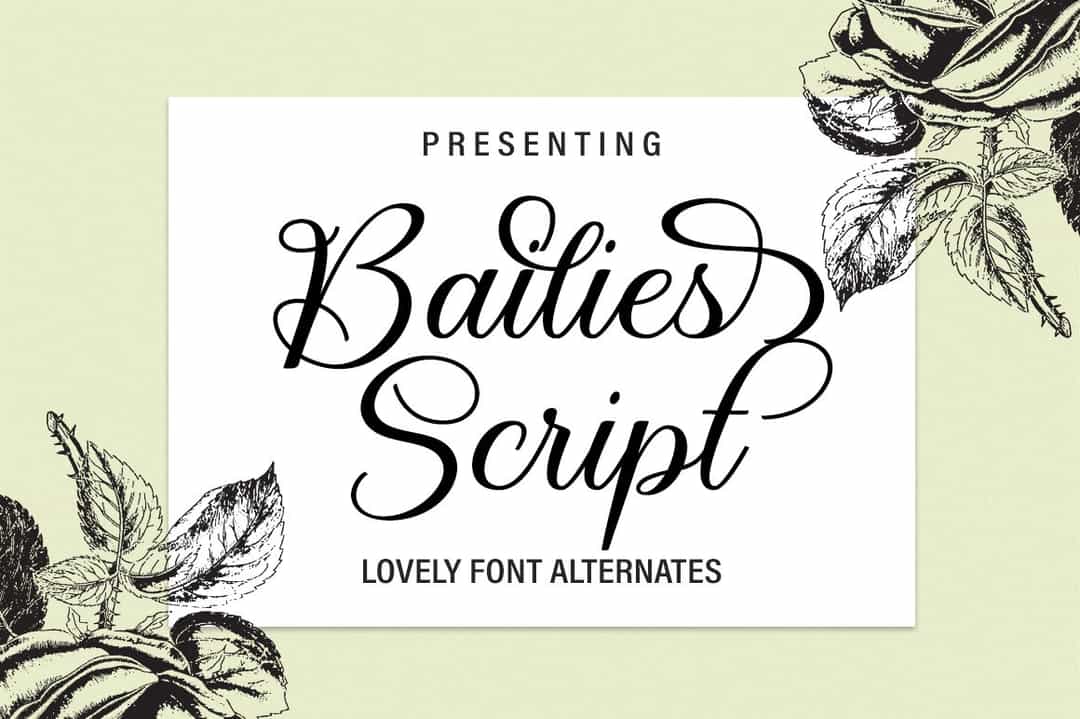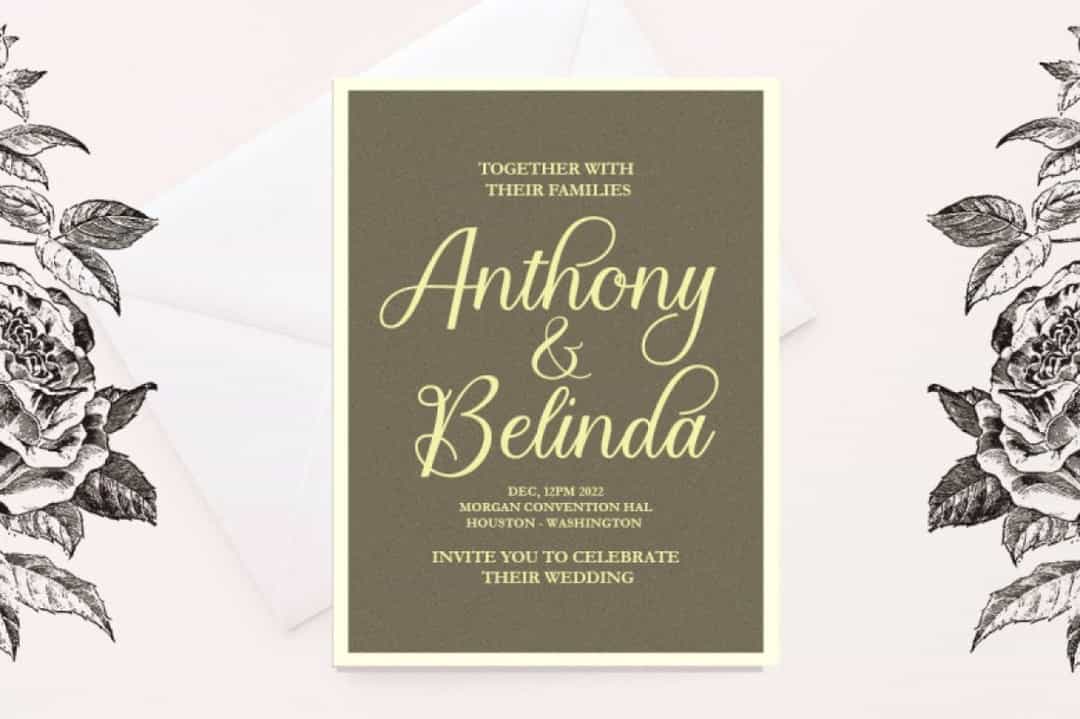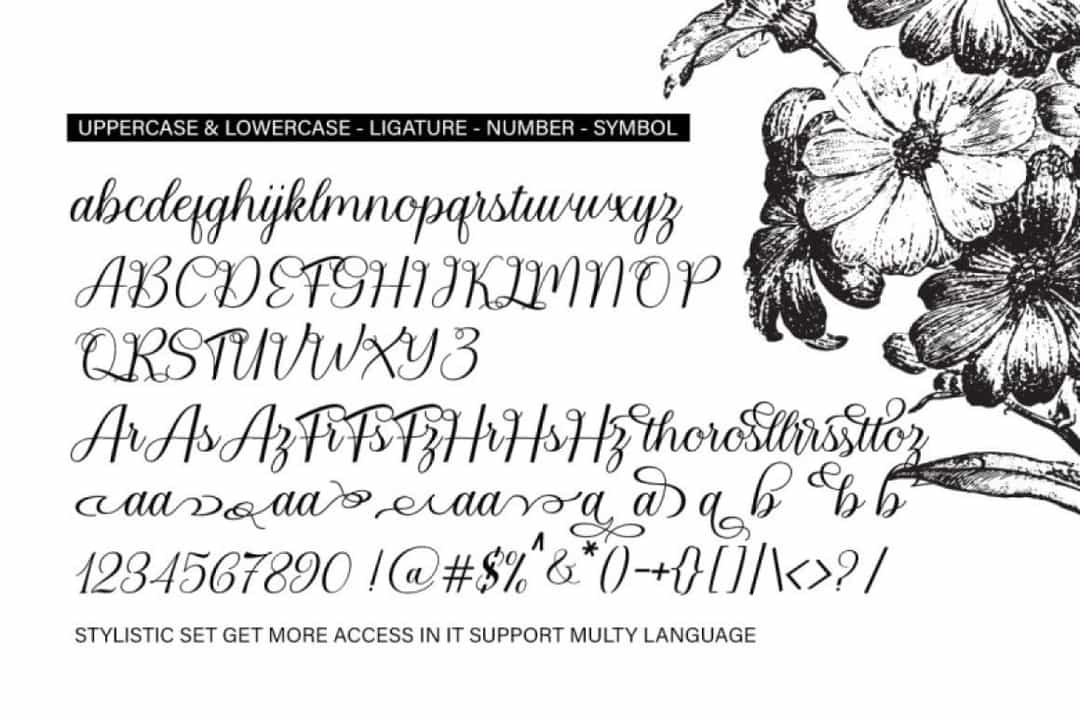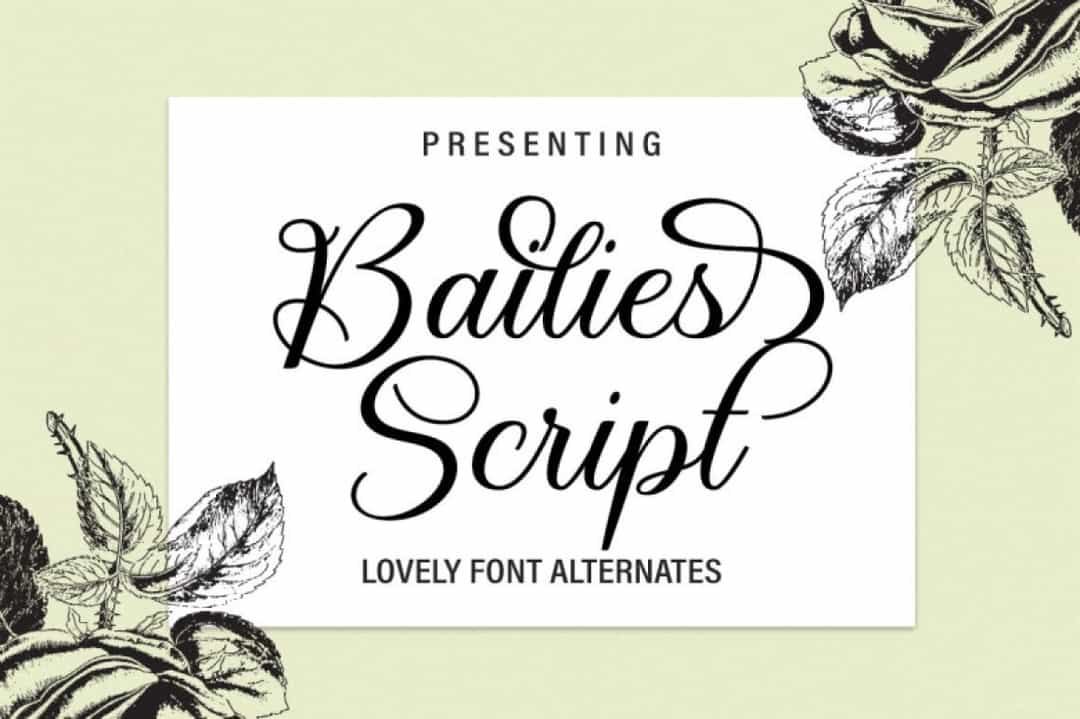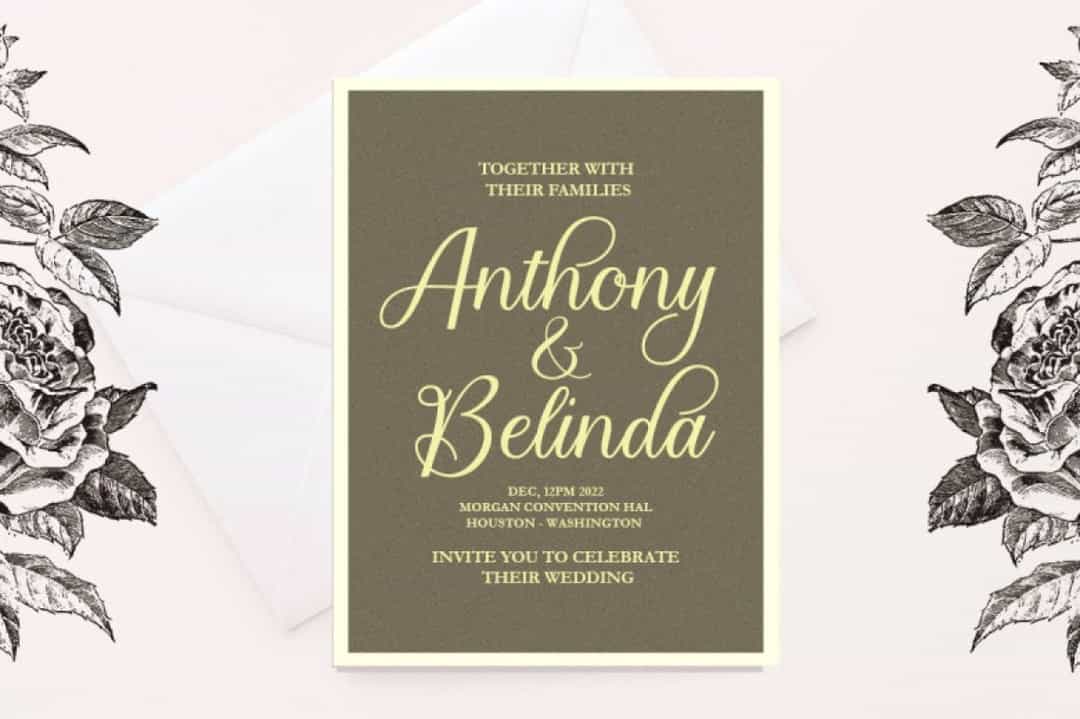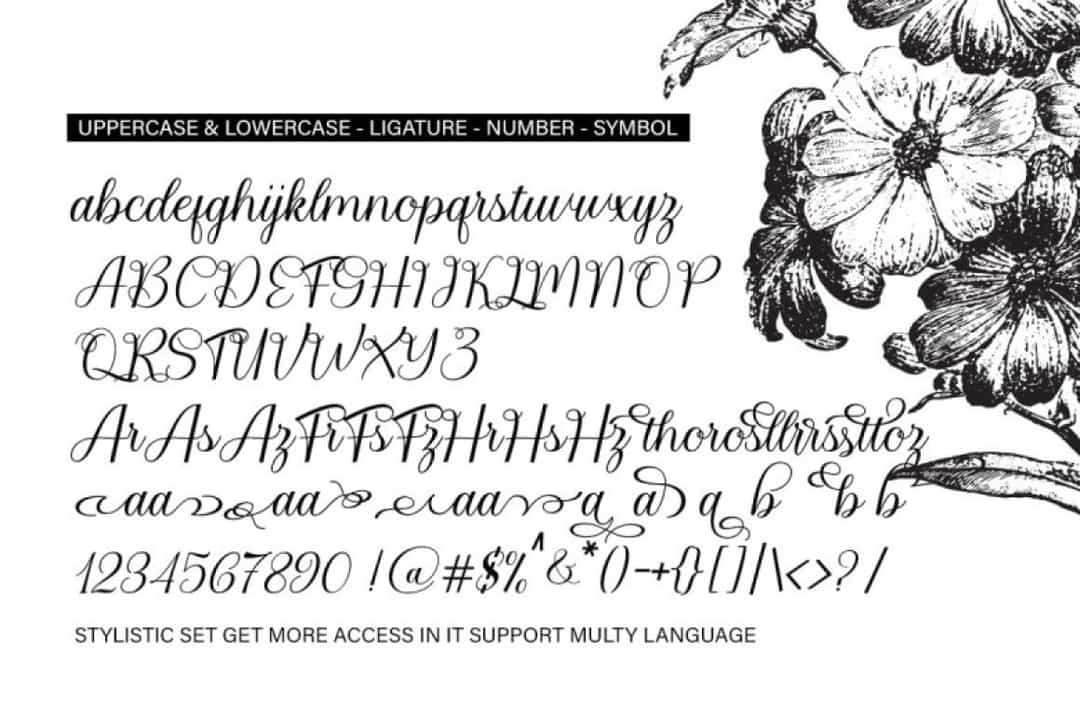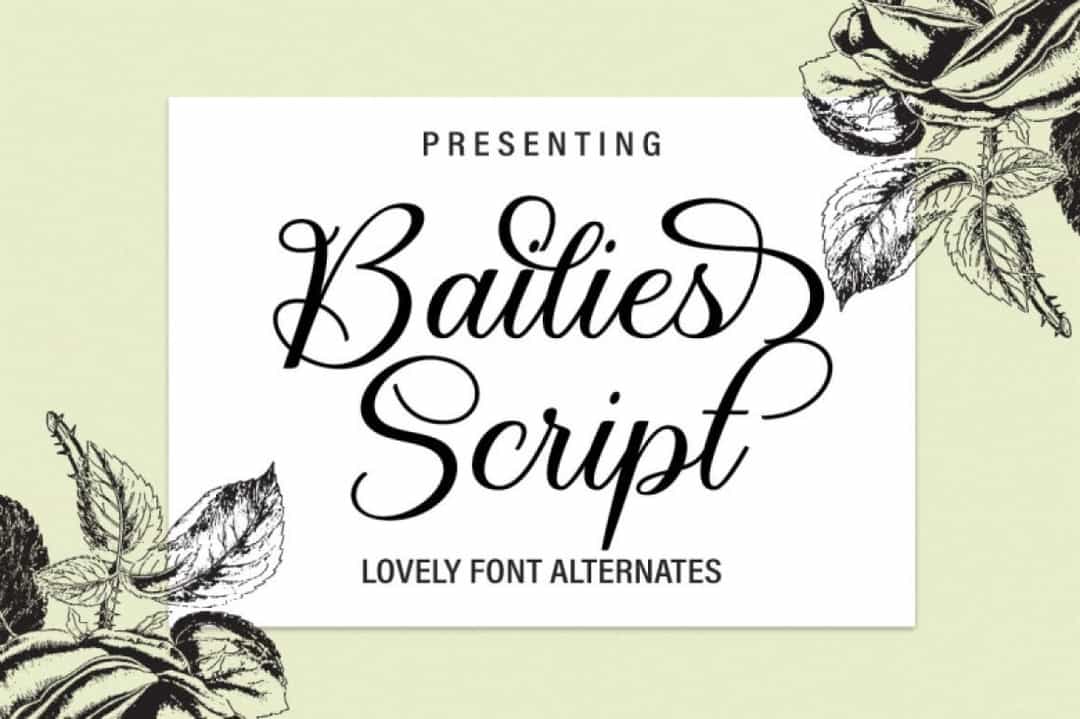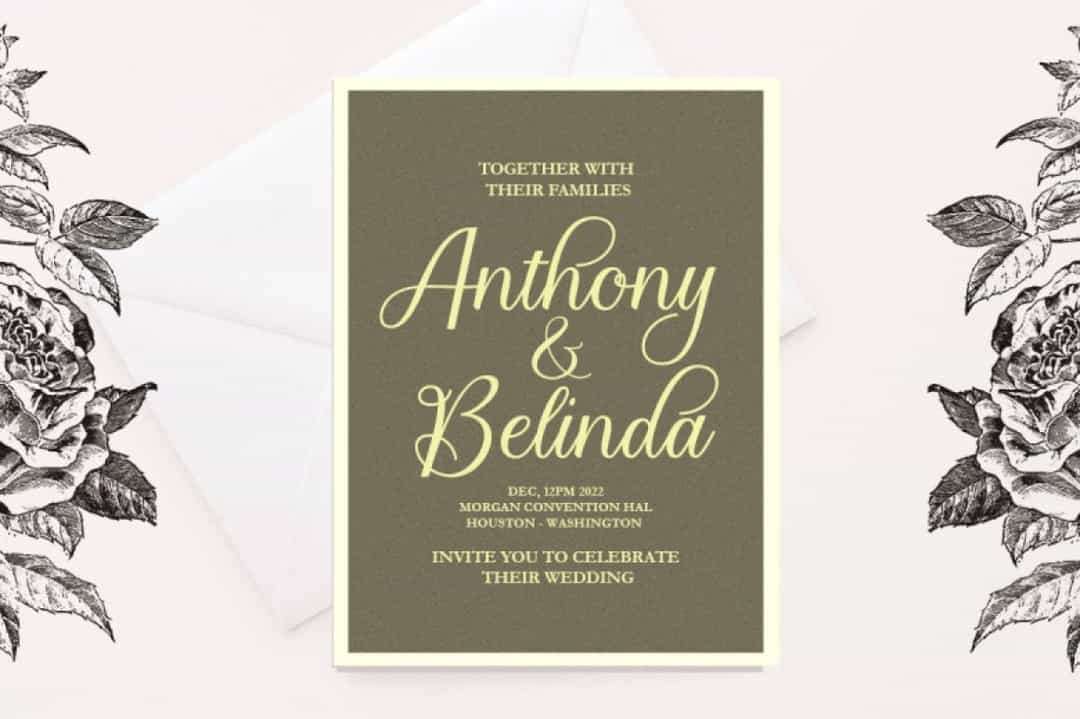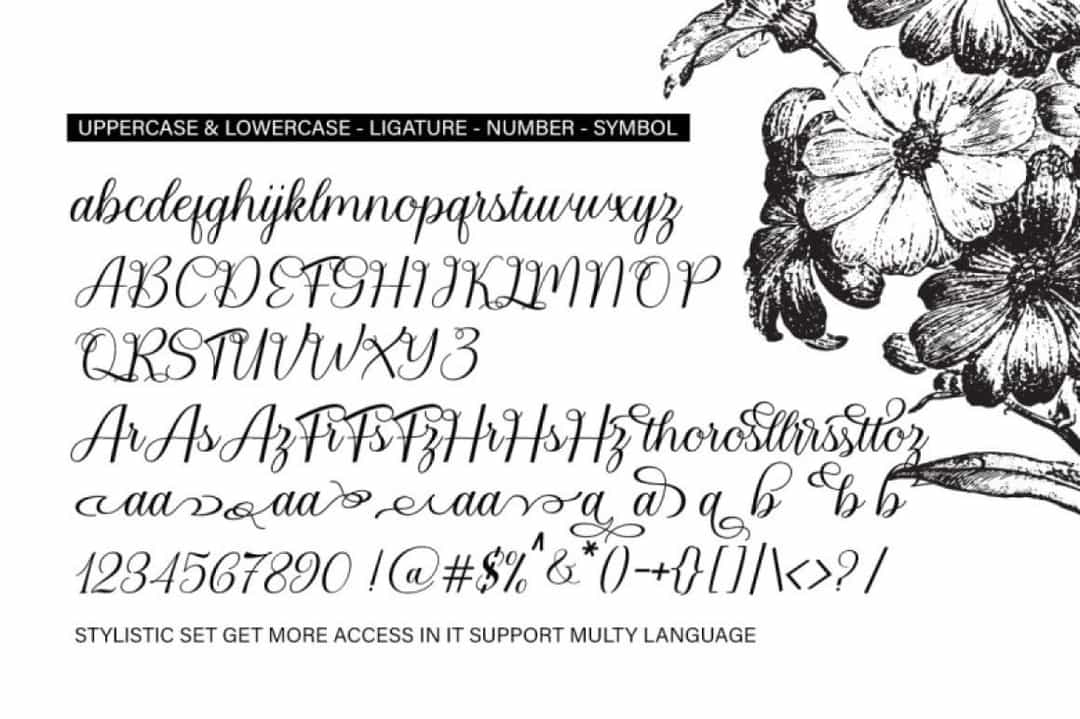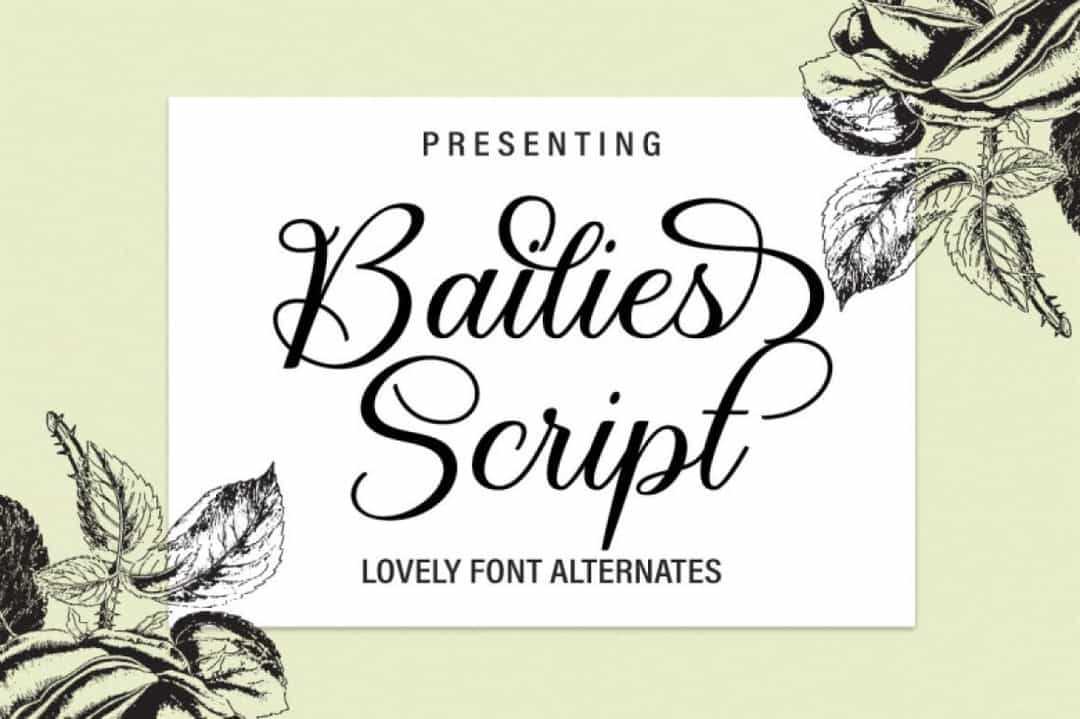
Introduce Bailies script, an elegant and beautiful calligraphy font with flowing strokes and delicate curves that create an undulating flow, as well as intricate detail and subdued flourishes that add an air of sophistication.